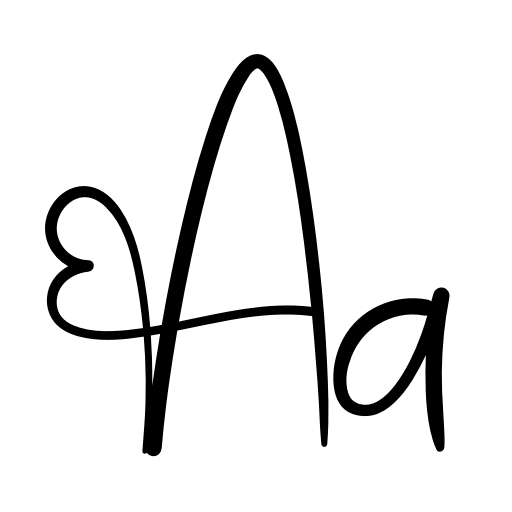
Birthday Night is a playful and elegant script font featuring tall, flowing letterforms with a lively, handwritten feel. Its delicate strokes and distinctive loops give it a charming and personal touch, making it perfect for invitations, greeting cards, and branding that seeks a warm and friendly atmosphere. This font shines in projects where a casual yet stylish vibe is desired, adding personality and flair to headlines, logos, and creative print designs.
Birthday Night Font
About Birthday Night Font